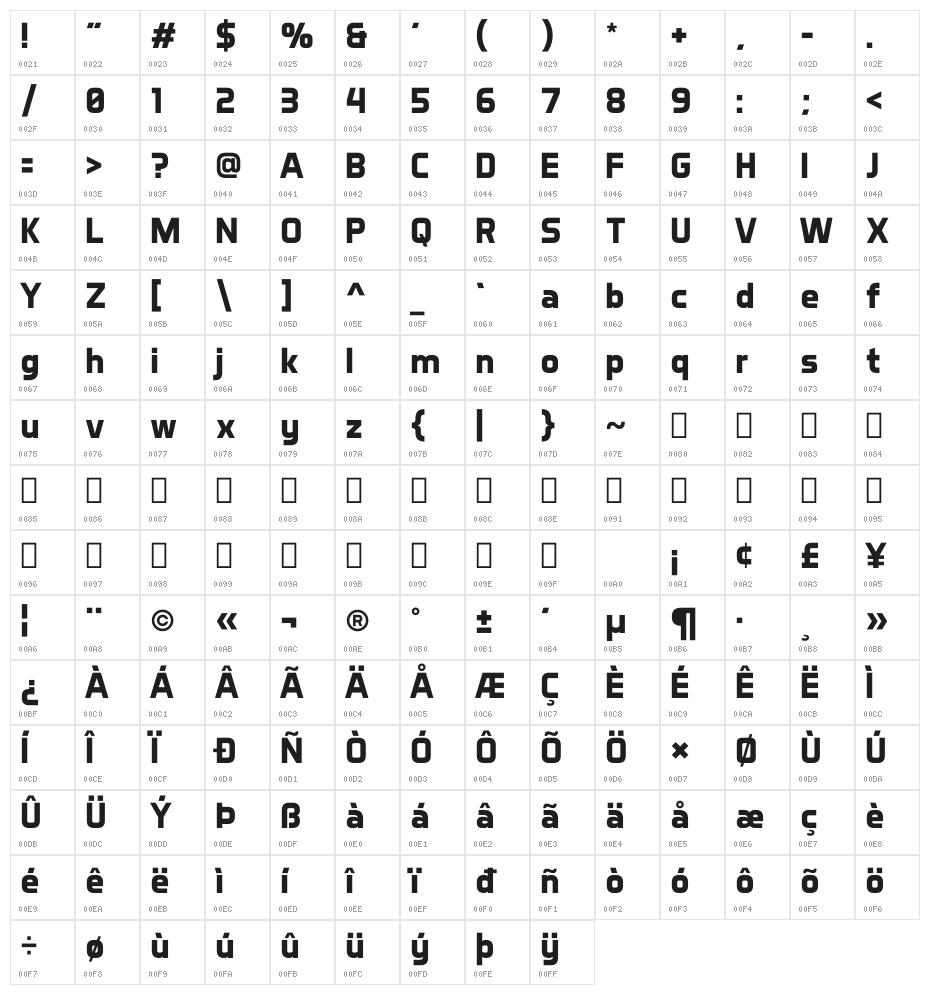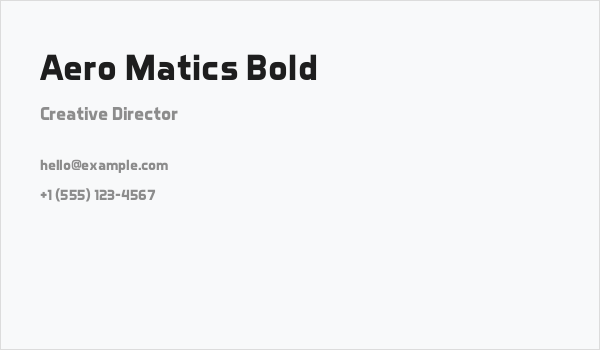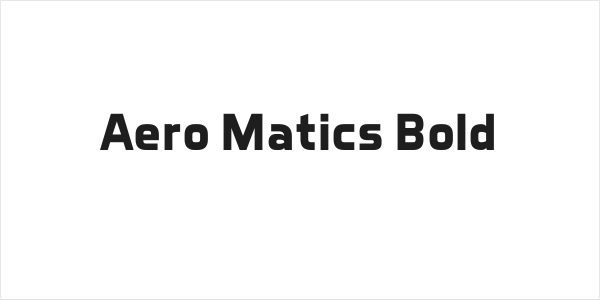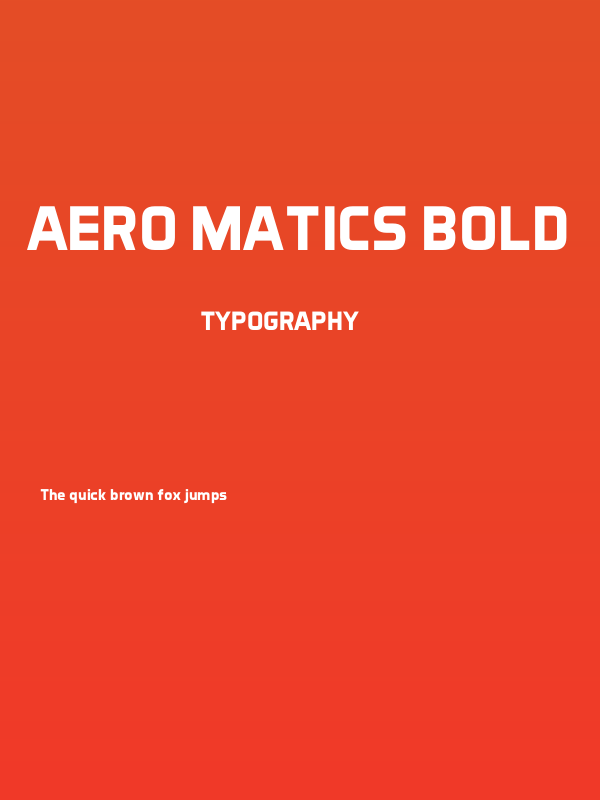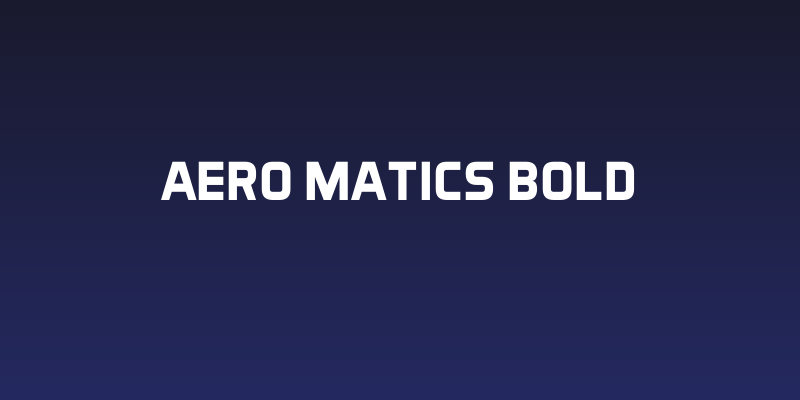
Aero Matics Bold Font
Aero Matics Bold Description
This font features a bold and robust design with a modern and geometric aesthetic. The characters are uniformly thick, providing a strong presence on the page. The uppercase letters are particularly striking, with a consistent height and width that create a sense of balance and stability. The lowercase letters maintain the same boldness, ensuring readability and cohesion across different text sizes. The numerals are clear and straightforward, matching the overall style of the font. Special characters are well-defined, adding versatility for various uses. The font's clean lines and lack of serifs contribute to its contemporary feel, making it suitable for a wide range of applications.
| Proposed Projects | Ideal for branding, headlines, posters, and digital content where a bold statement is needed. |